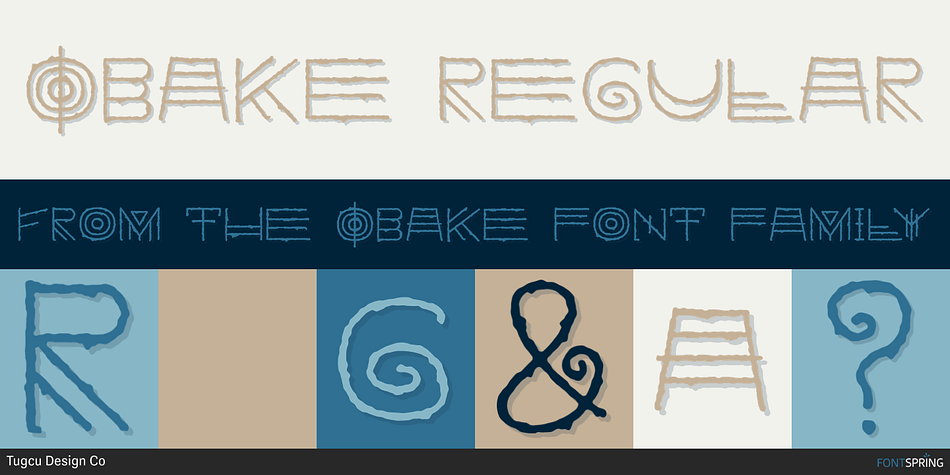
Obake Regular
Obake is a display font family published by Tugcu Design Co.
Obake is a runic occult font with alternates that can be toggled via Caps Lock.